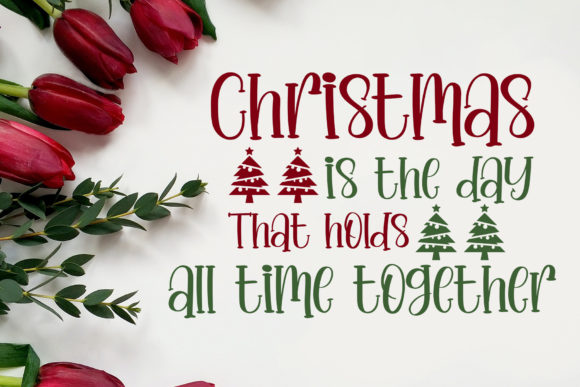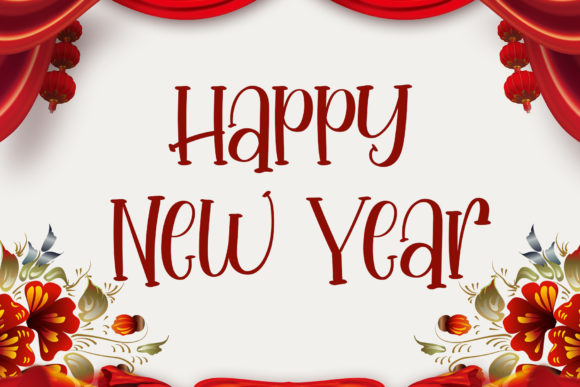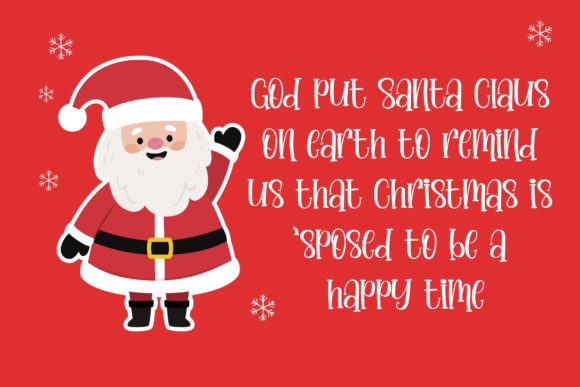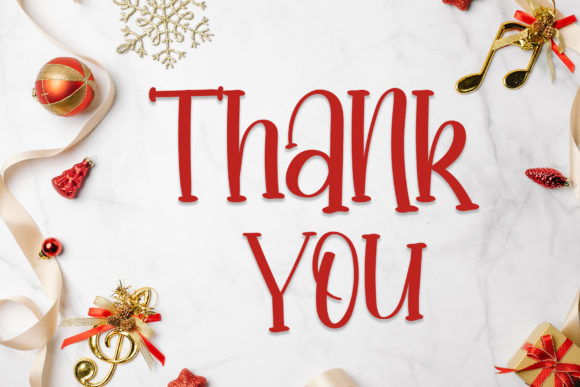
Boho Jolly Font
Boho & Jolly is a modern serif font that is readable, smart, and stylish. It is defined by smooth curves and is perfect for fashion branding or editorial designs. Add it confidently to your projects, and you will love the results!